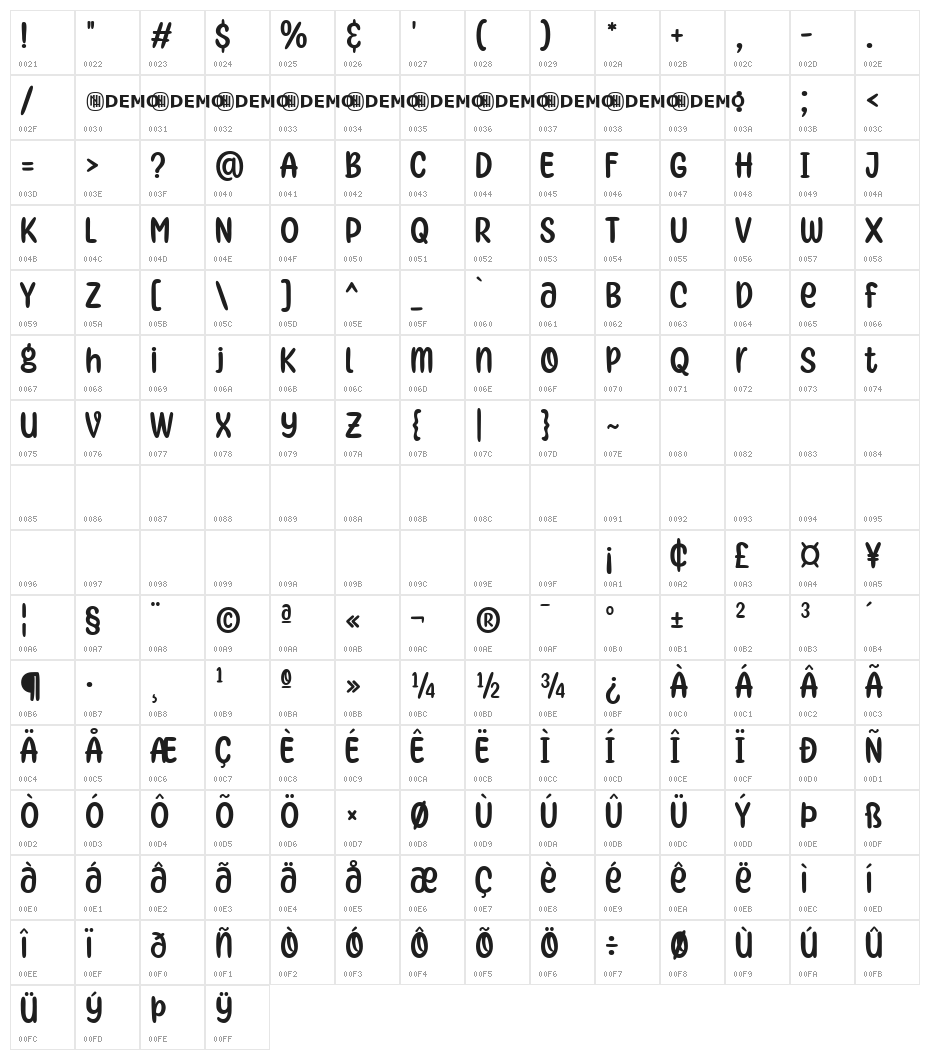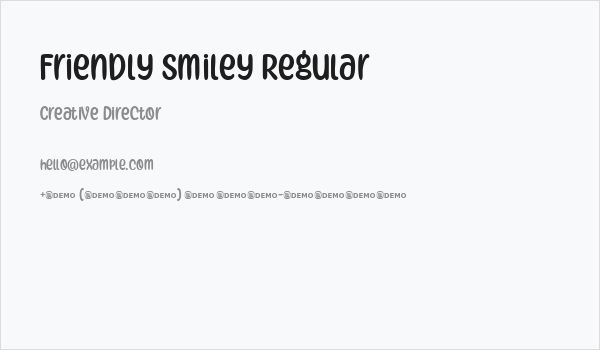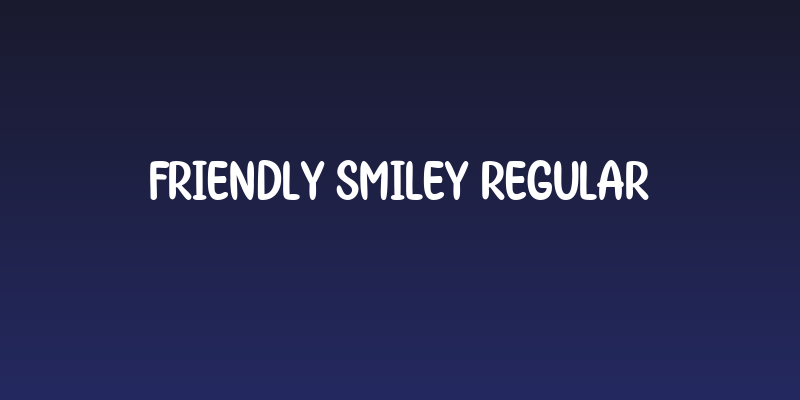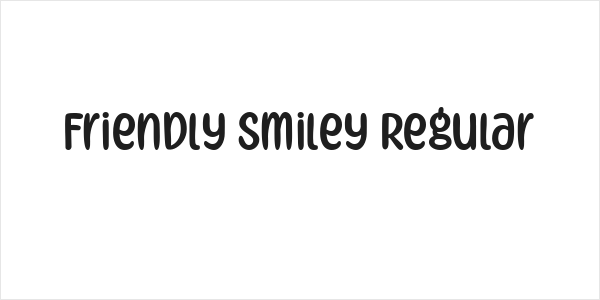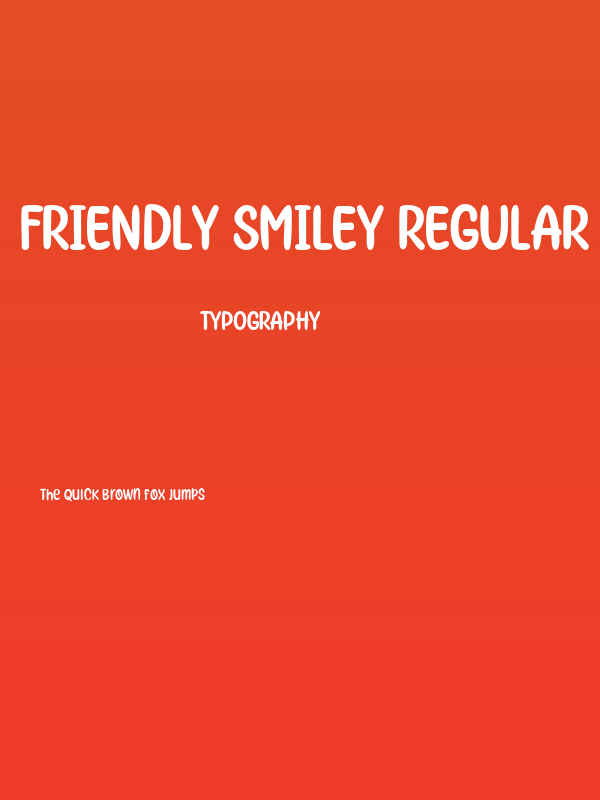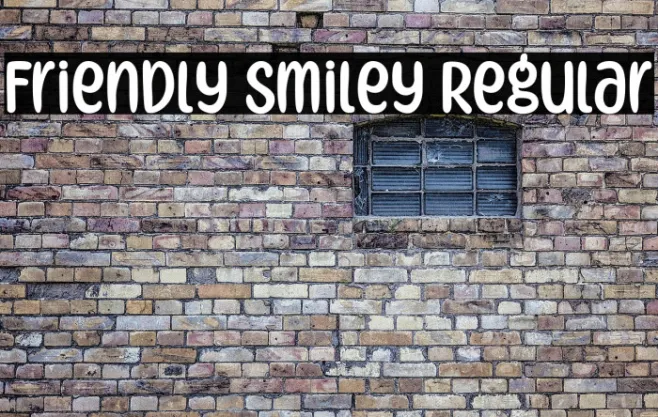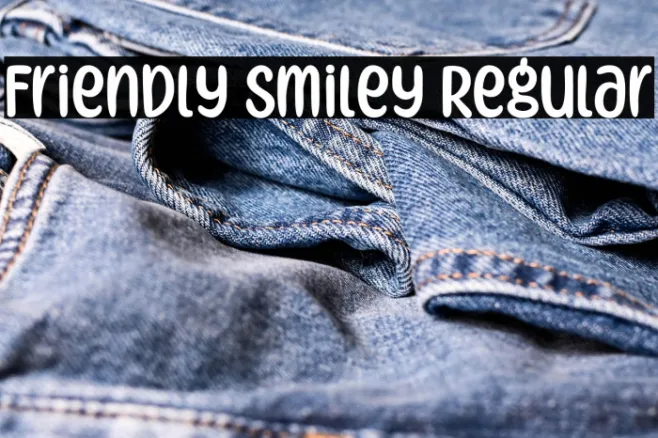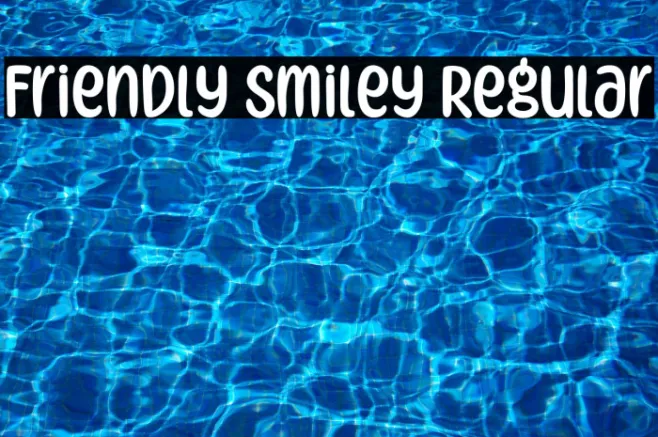
Friendly Smiley Regular Font
Friendly Smiley Regular Description
This font exudes a playful and friendly vibe with its rounded, bubbly characters. The letters are bold and have a consistent thickness, giving them a cartoonish appearance. The uppercase and lowercase letters maintain a uniform style, with slight variations in curves that add to the font's charm. The numbers and special characters follow the same design principles, ensuring a cohesive look across all glyphs. The font's overall aesthetic is approachable and fun, making it ideal for projects that require a lighthearted touch.
| Overall Style | Playful, Fun |
| Proposed Projects | Ideal for children's books, playful branding, greeting cards, and casual invitations. |